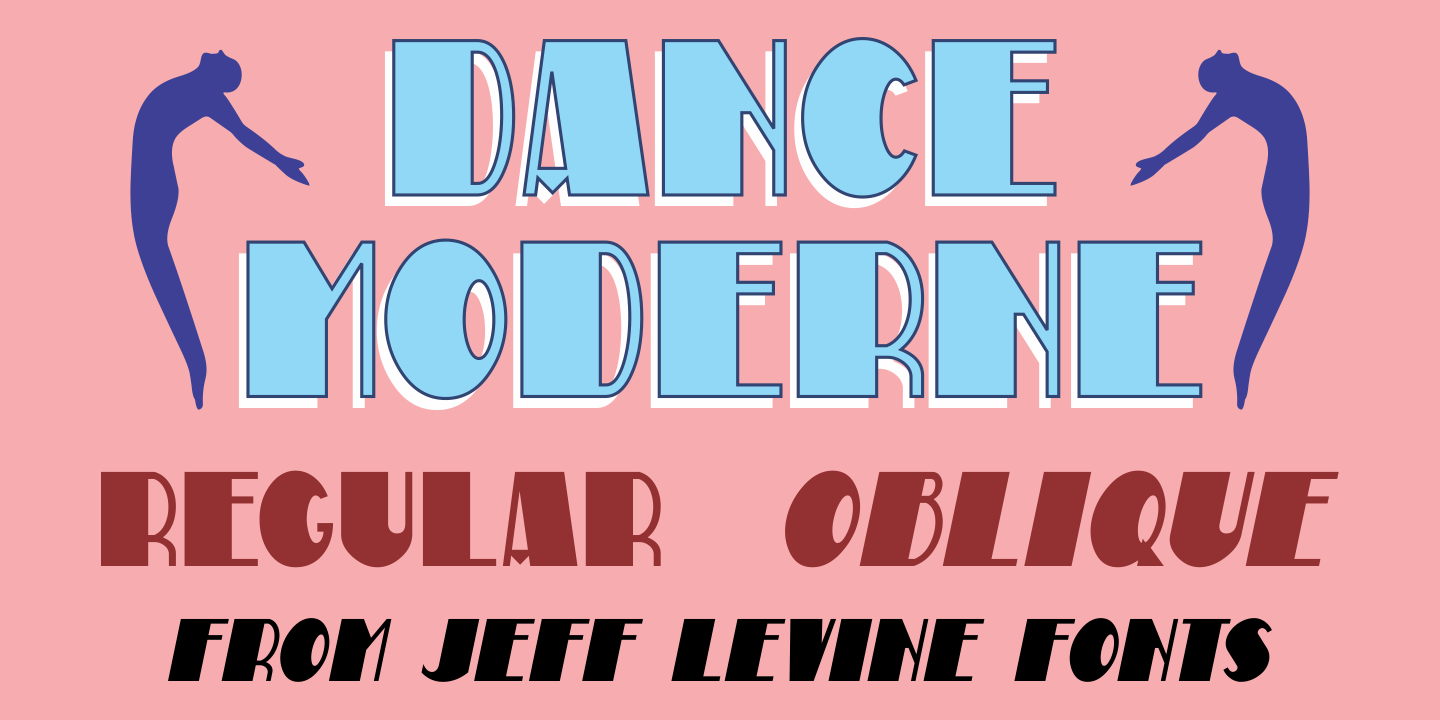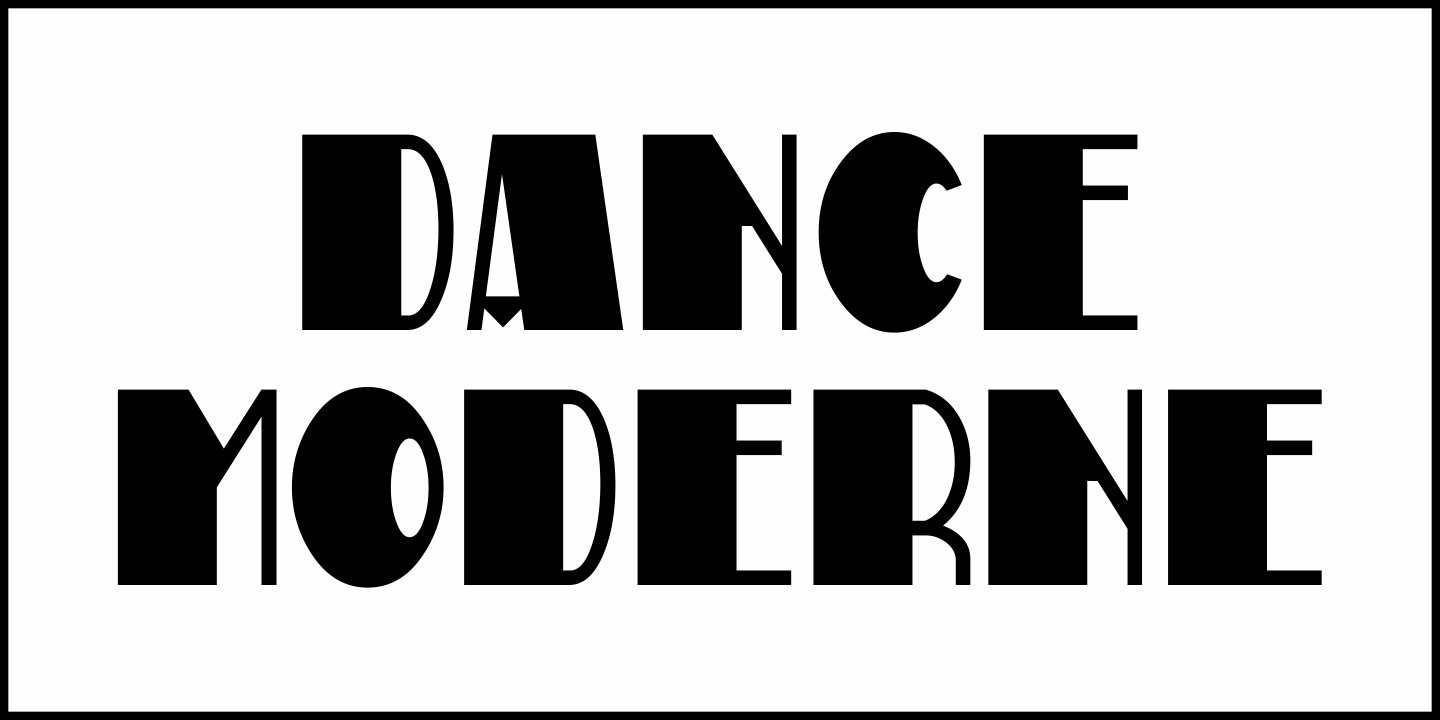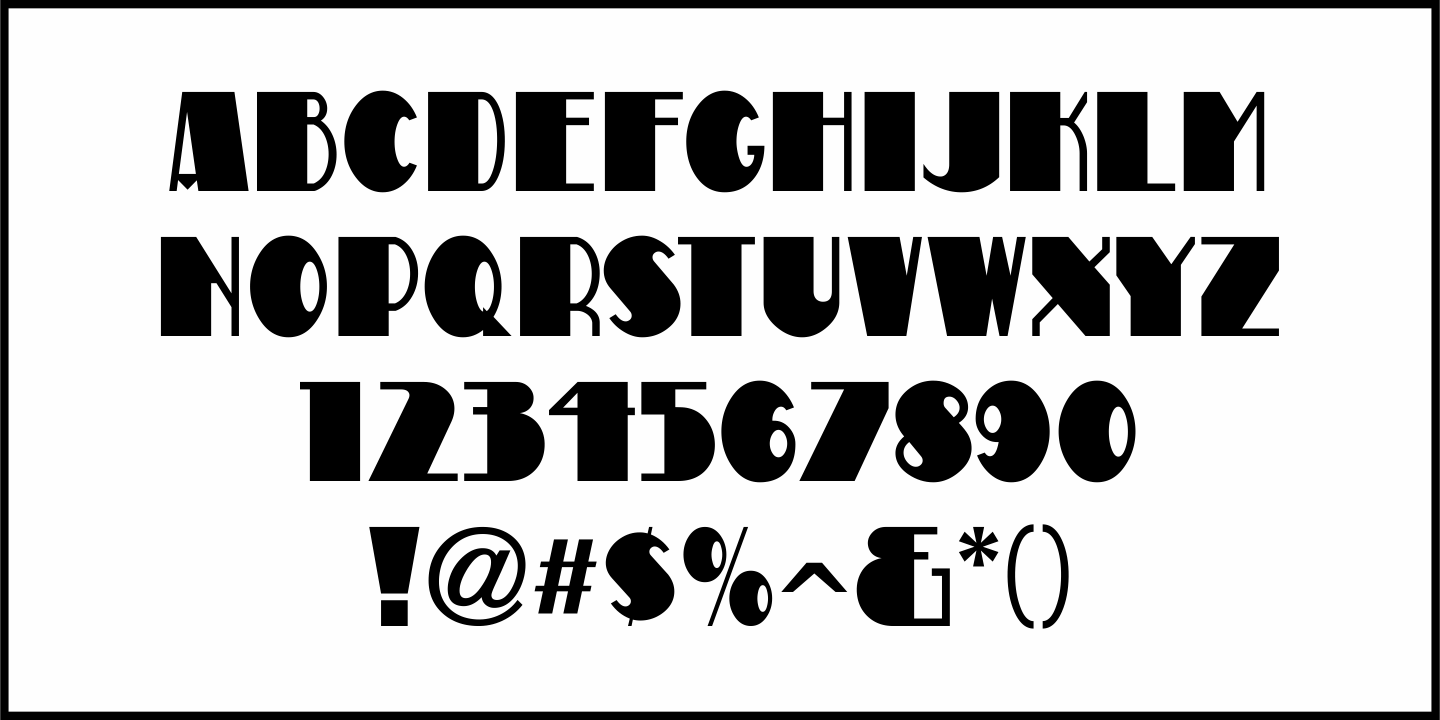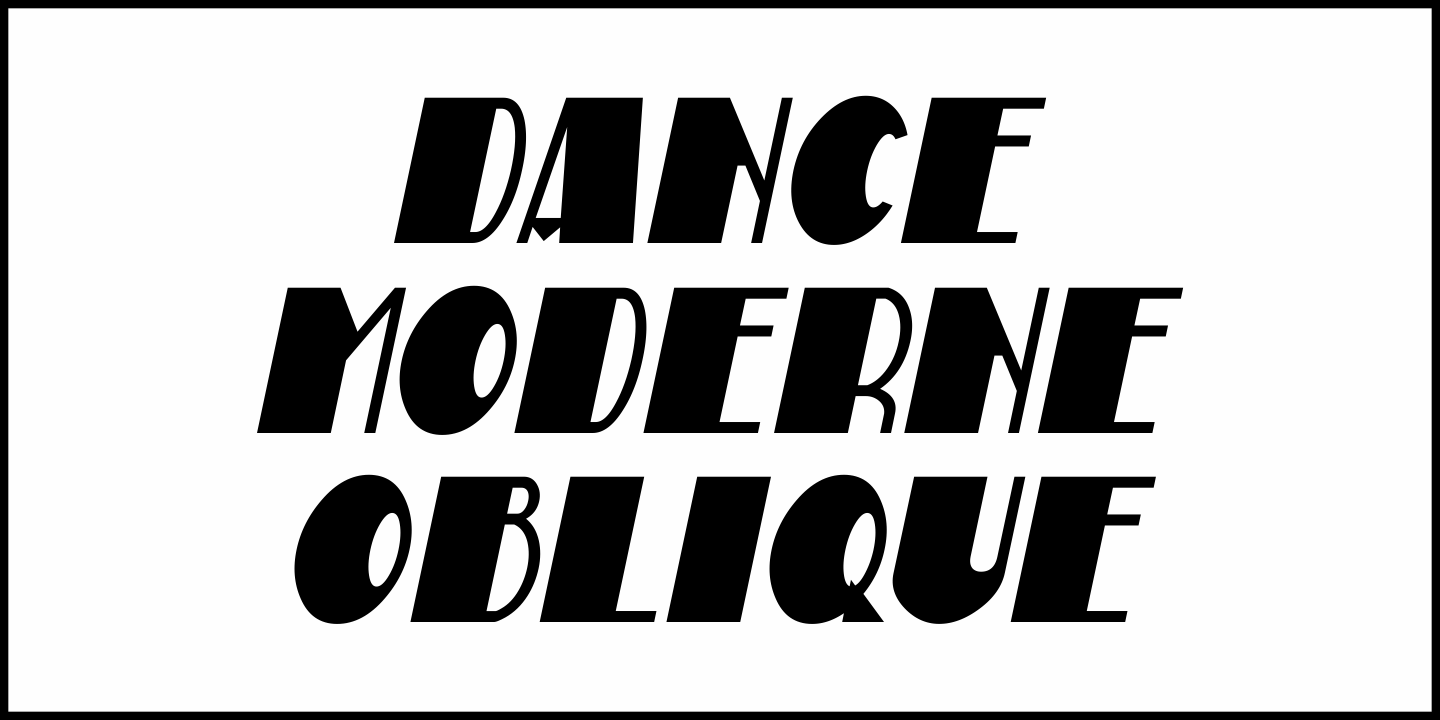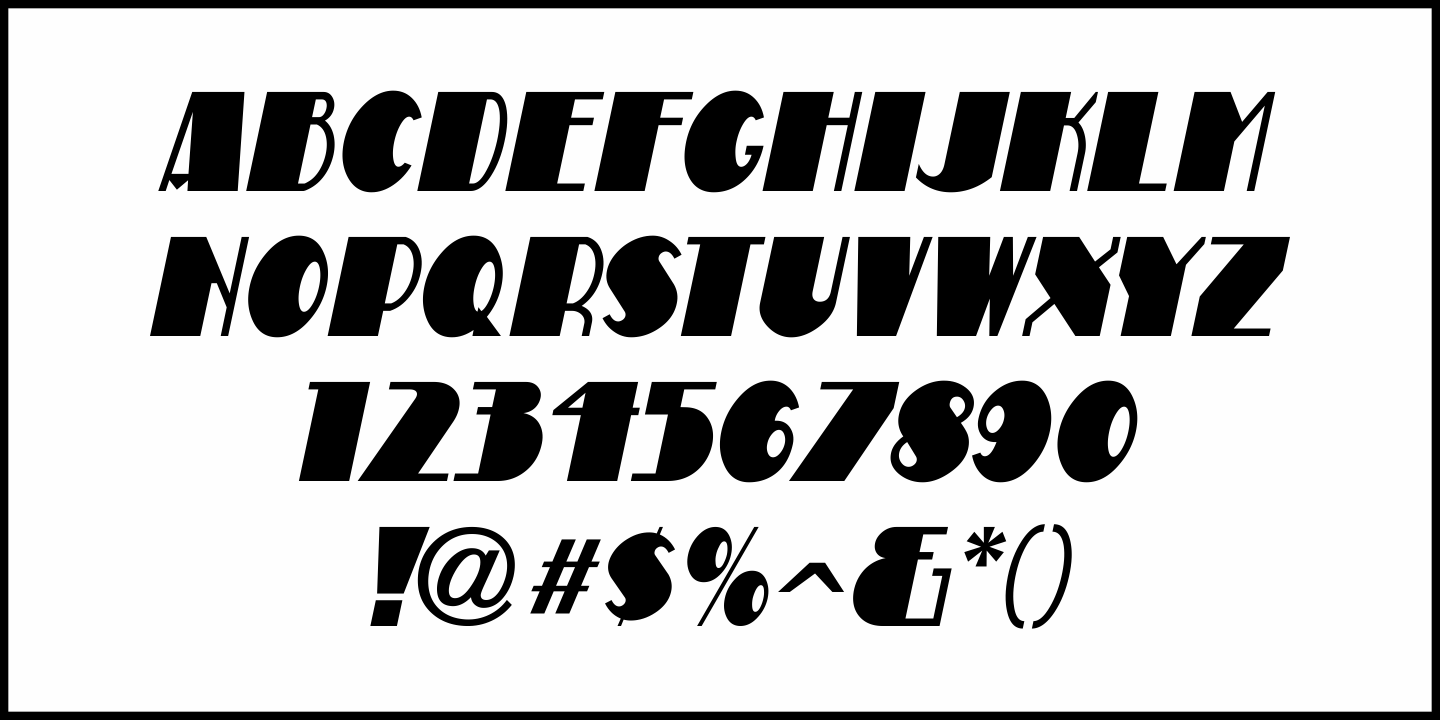
Dance Moderne
A small book entitled “Portfolio of Alphabet Designs for Artists, Architects, Designers & Craftsmen” [published in 1938 by Irene K. Ames] contained a number of pages displaying hand lettered alphabet examples.
One sample in particular stood out for its bold Art Deco look and unusual design.
This is now available as Dance Moderne JNL, in both regular and oblique versions.
Dance Moderne by Jeff Levine Fonts